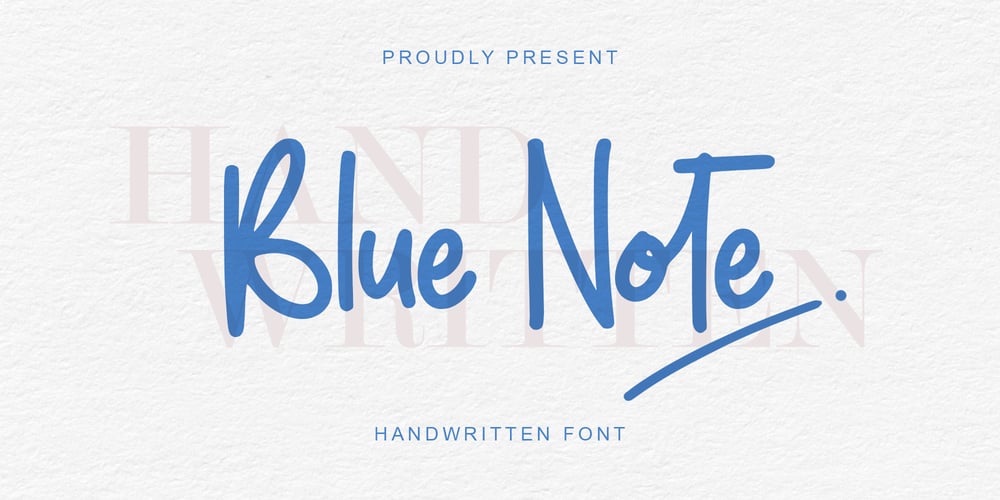
Blue Note Font Family was designed by Alif Ryan Zulfikar and published by Sakha Design. Blue Note contains 2 styles and family package options. Blue Note is a simple and neat handwritten font. Whether you’re using it for crafts, digital design, presentations, or making greeting cards, this font has the potential to become your favorite go-to font, no matter the occasion!